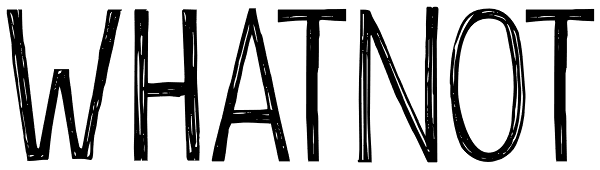
Whatnot
Whatnot is a beautiful, hand drawn all caps font. It was made with a fine-liner on smooth paper. Whatnot can be used for almost all designs, in particular for posters, books and ads. Whatnot comes with a full range of alternate lower case letters...